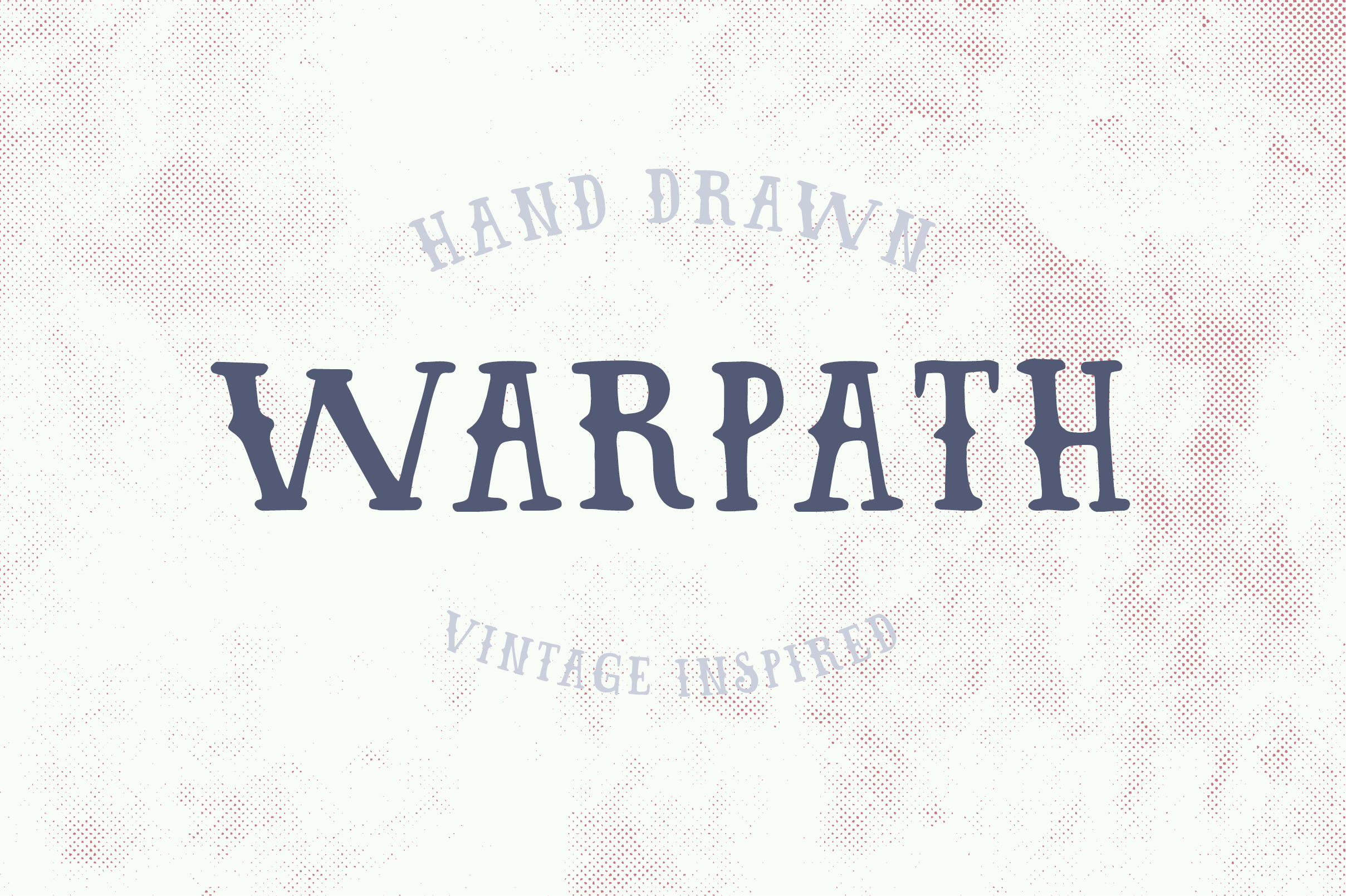
WARPATH Typeface
Try Warpath for that gritty vintage inspired look
- Heritage inspired hand drawn typeface for the use of bold headlines, posters or packaging.
Try WARPATH for:
- Menu Boards
- Posters
- Letterings
- Headlines
- Recipes
- Branding
- Editorials & more